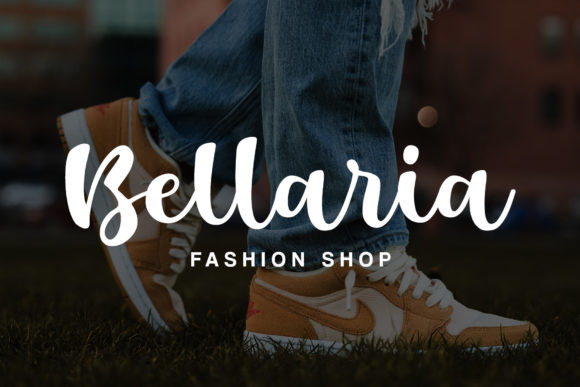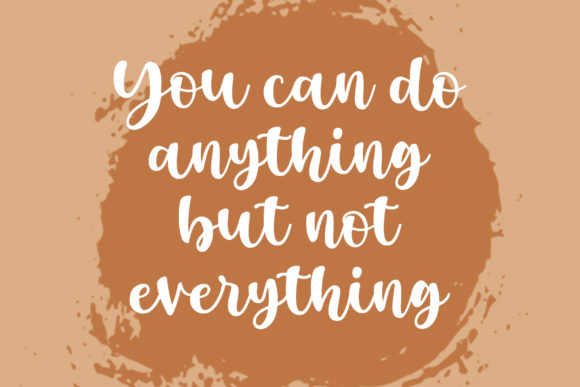
Celestial Font
db-ku.com - Script & Handwritten -- Celestial is a trendy, round lettered and stylish script font. Fall for its ravishing style and use it to create gorgeous wedding invitations, beautiful stationary art, eye-catching social media posts, and much more!